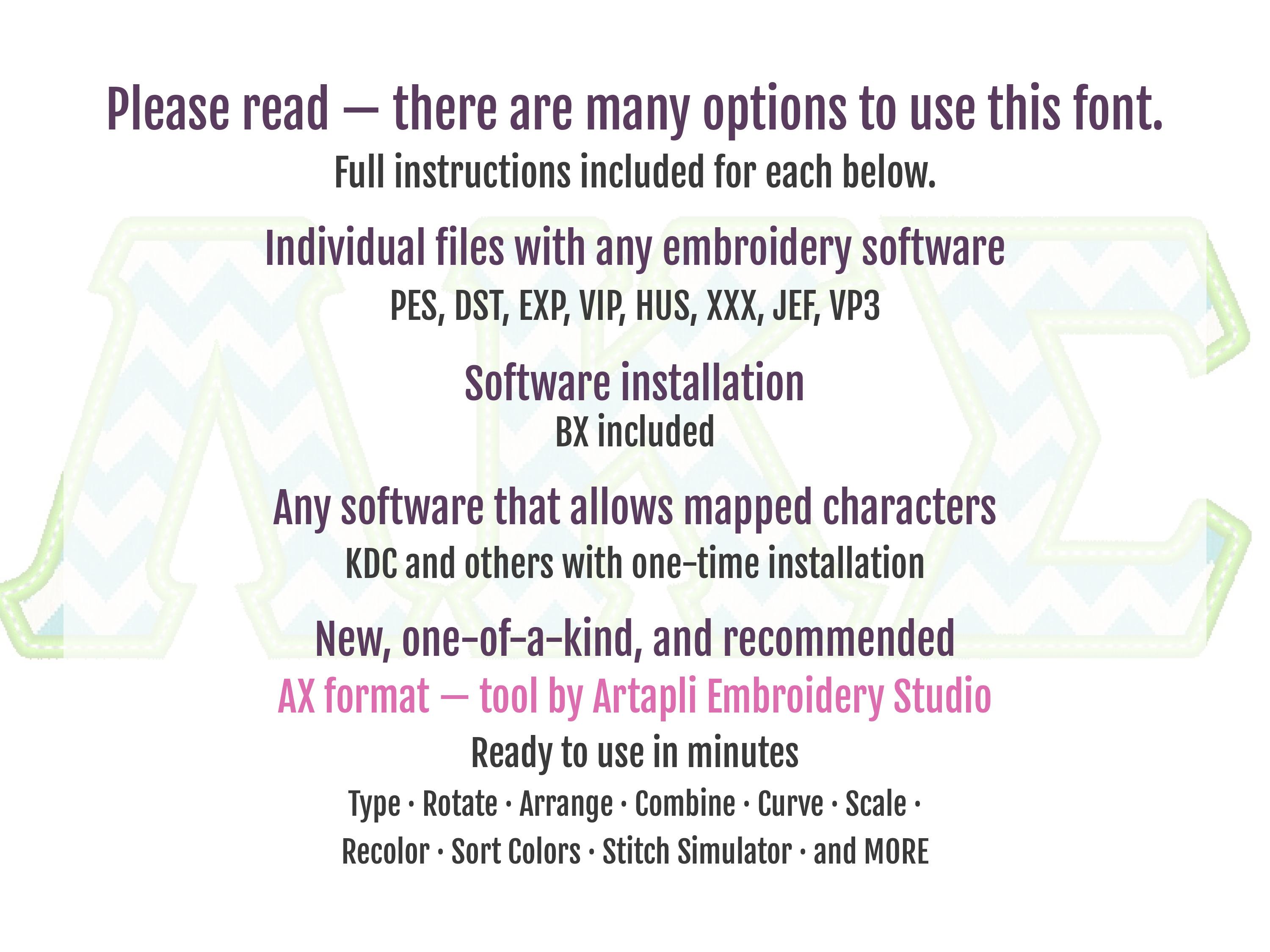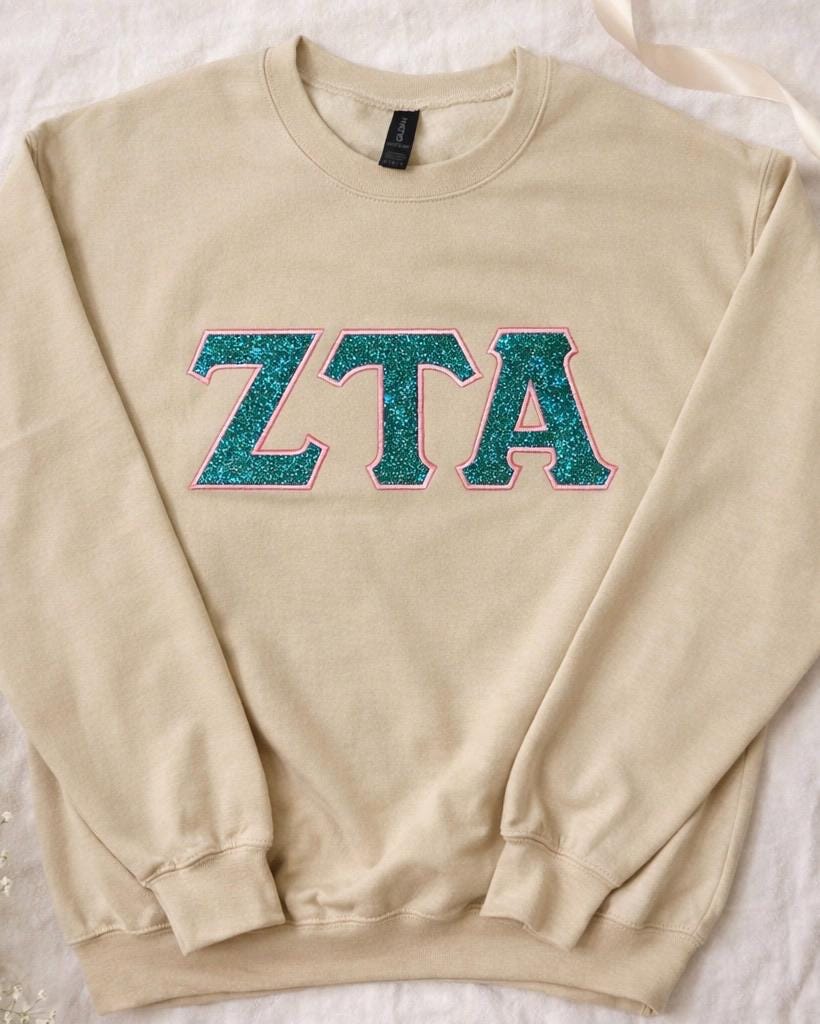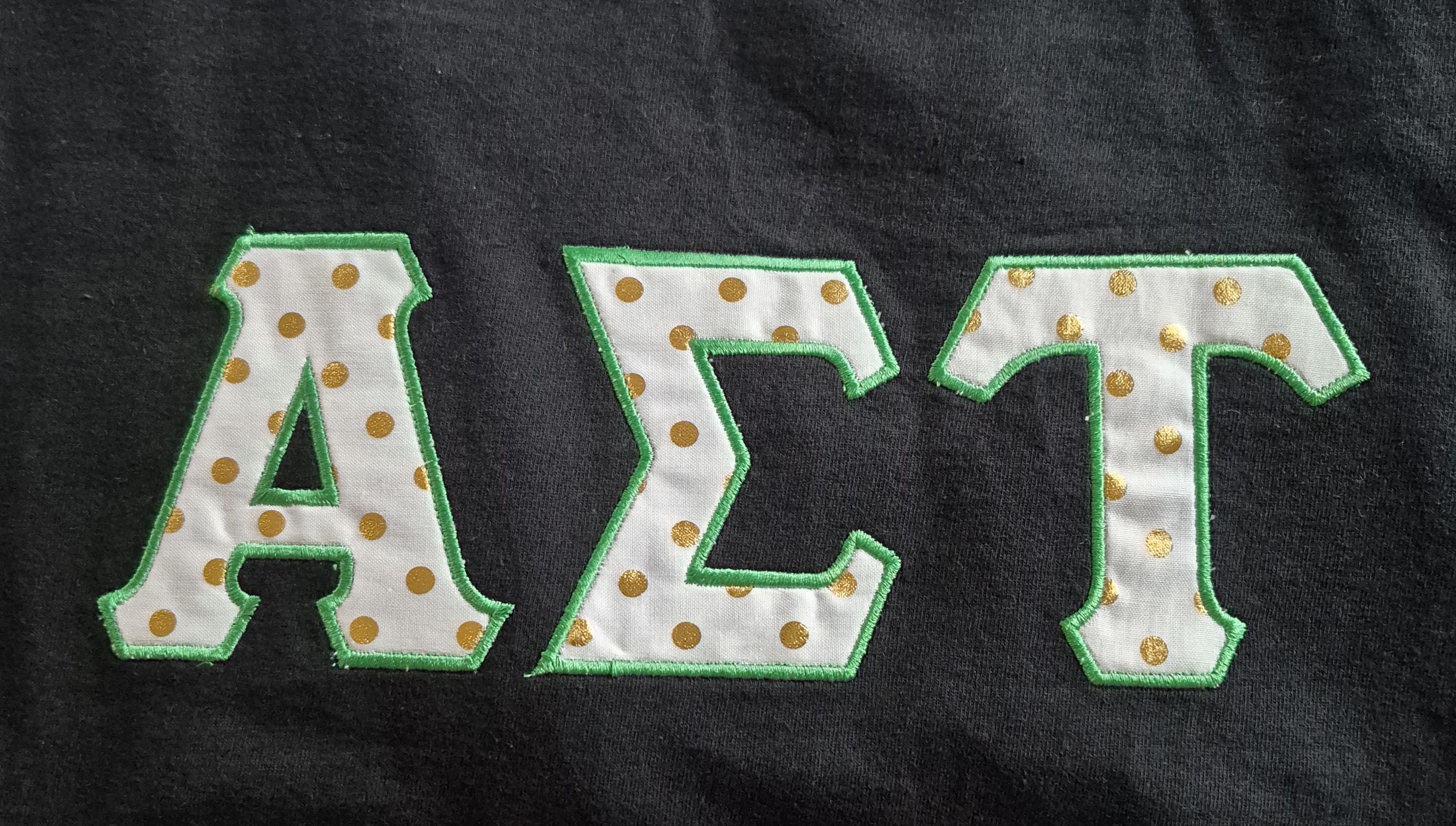
Fraternities and sororities Greek simple applique font with contrast outline (mini font machine embroidery designs)
Applique letters with classic satin stitch and neat top stitch to secure the applique satin stitch in the wash!